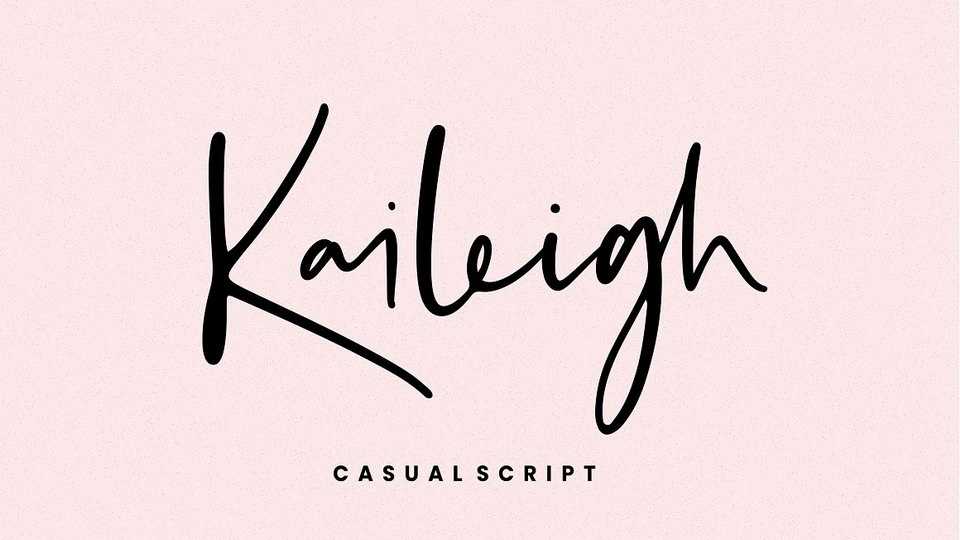
Download Kaileigh font, a casual handwritten script with signature style and natual look. Perfect for logo, invitation, stationery, wedding designs, social media posts, advertisements, product packaging, product designs, label, photography, watermark, special events or anything.
Designer: Sronstudio